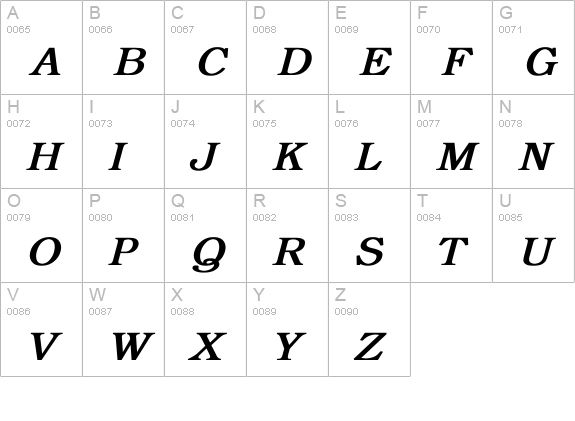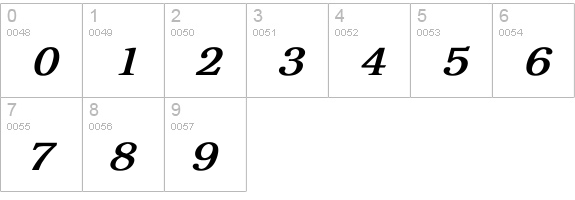
Bookman Bold Italic Font Details
Bookman Bold Italic is a strong, high-contrast, italic variant in the Bookman typeface family \xE2\x80\x94 well suited to headlines, attention-grabbing titles, and strong calls-to-action.
Bookman Bold Italic font is a timeless and sophisticated typeface that exudes elegance and style. With its bold yet graceful strokes, this font is perfect for adding a touch of sophistication to any design project. The italicized slant adds a dynamic and modern twist to the classic Bookman style, making it a versatile choice for both print and digital applications. The Bookman Bold Italic font is freely available to download at FontsMarket.com, allowing designers and creatives to easily access and incorporate this beautiful typeface into their projects. Whether you're working on a branding campaign, editorial layout, or website design, the Bookman Bold Italic font will elevate your work with its unique charm and character. Stand out from the crowd and make a statement with this stunning font that combines tradition with a contemporary edge.